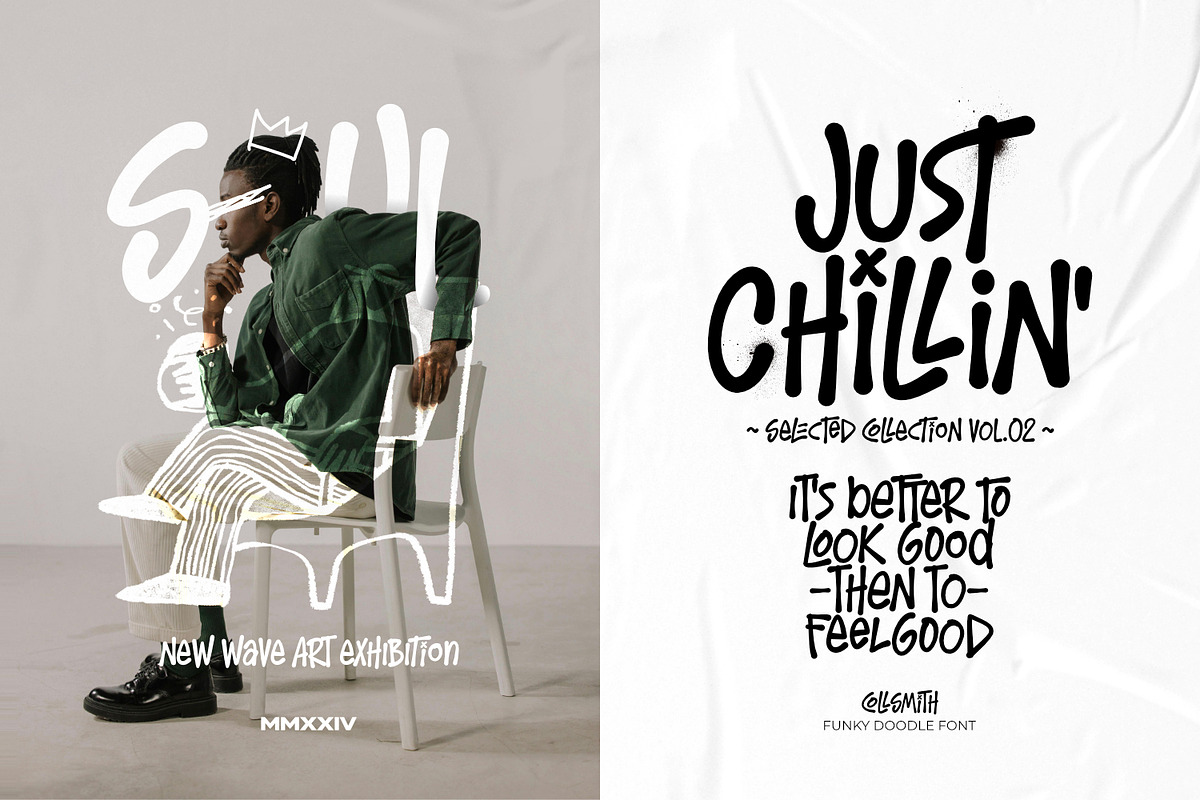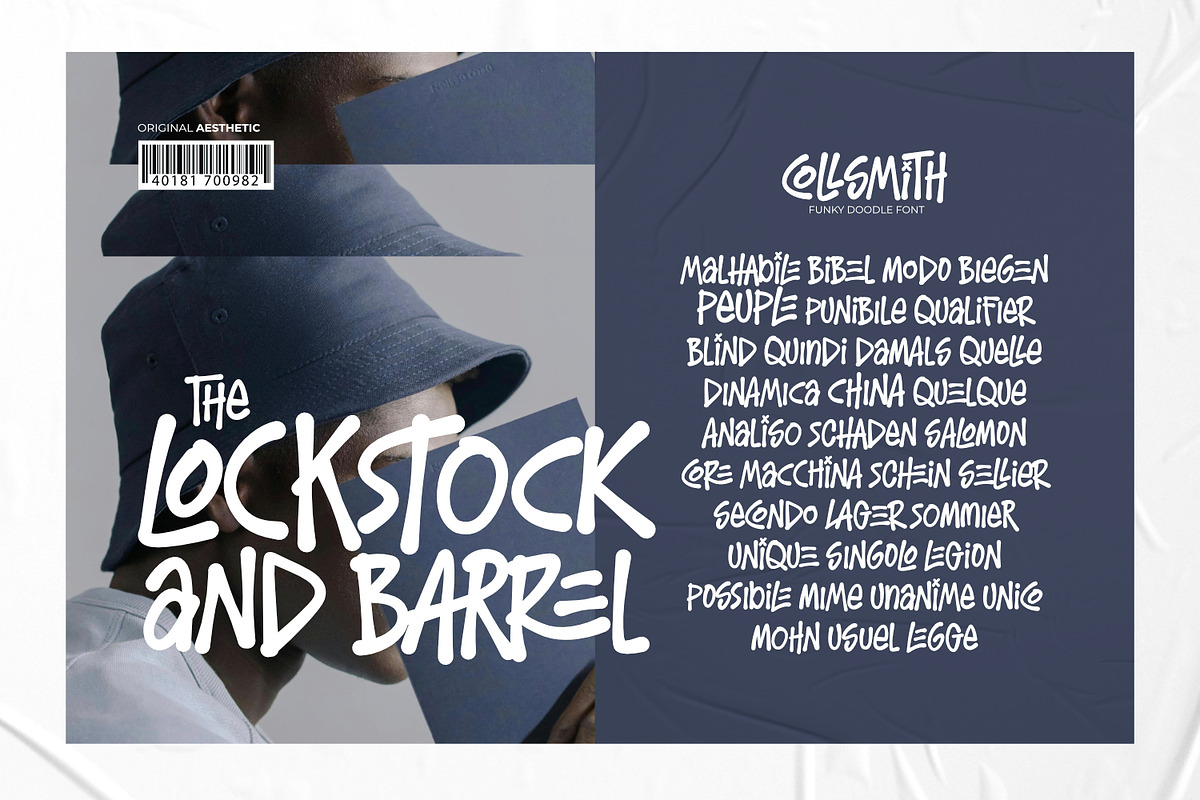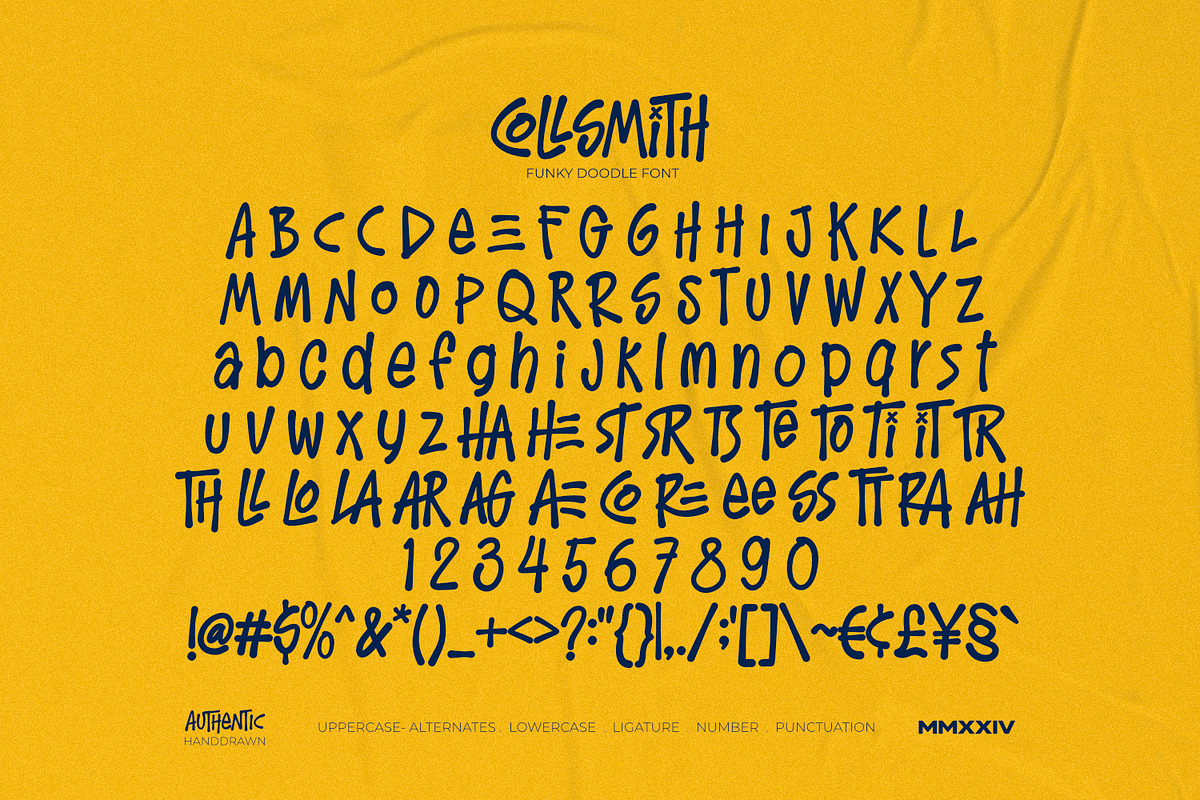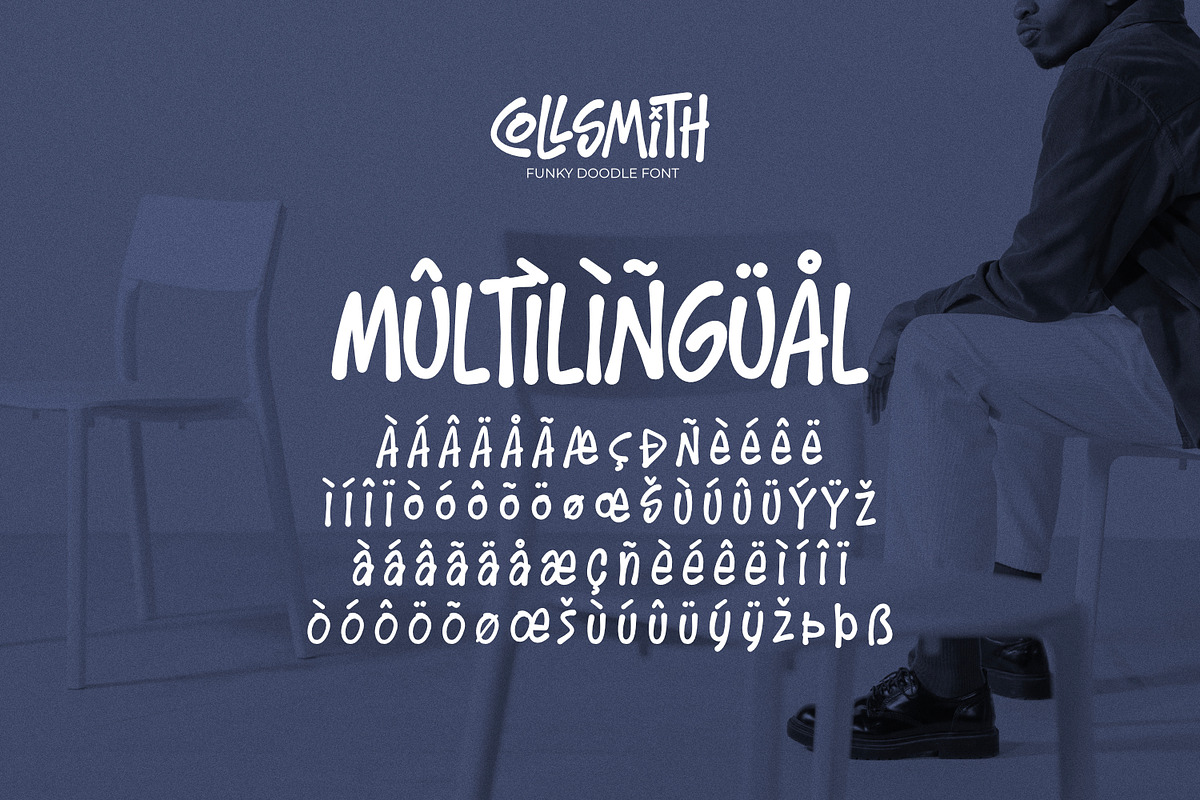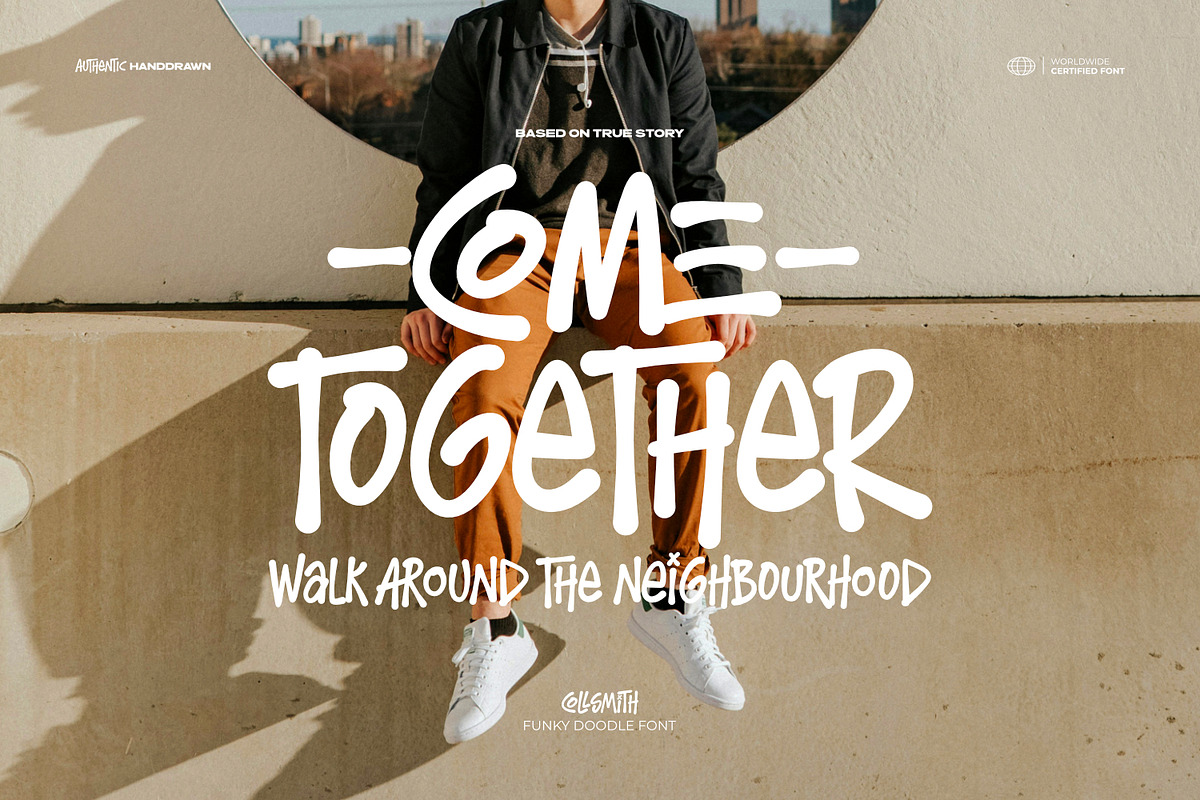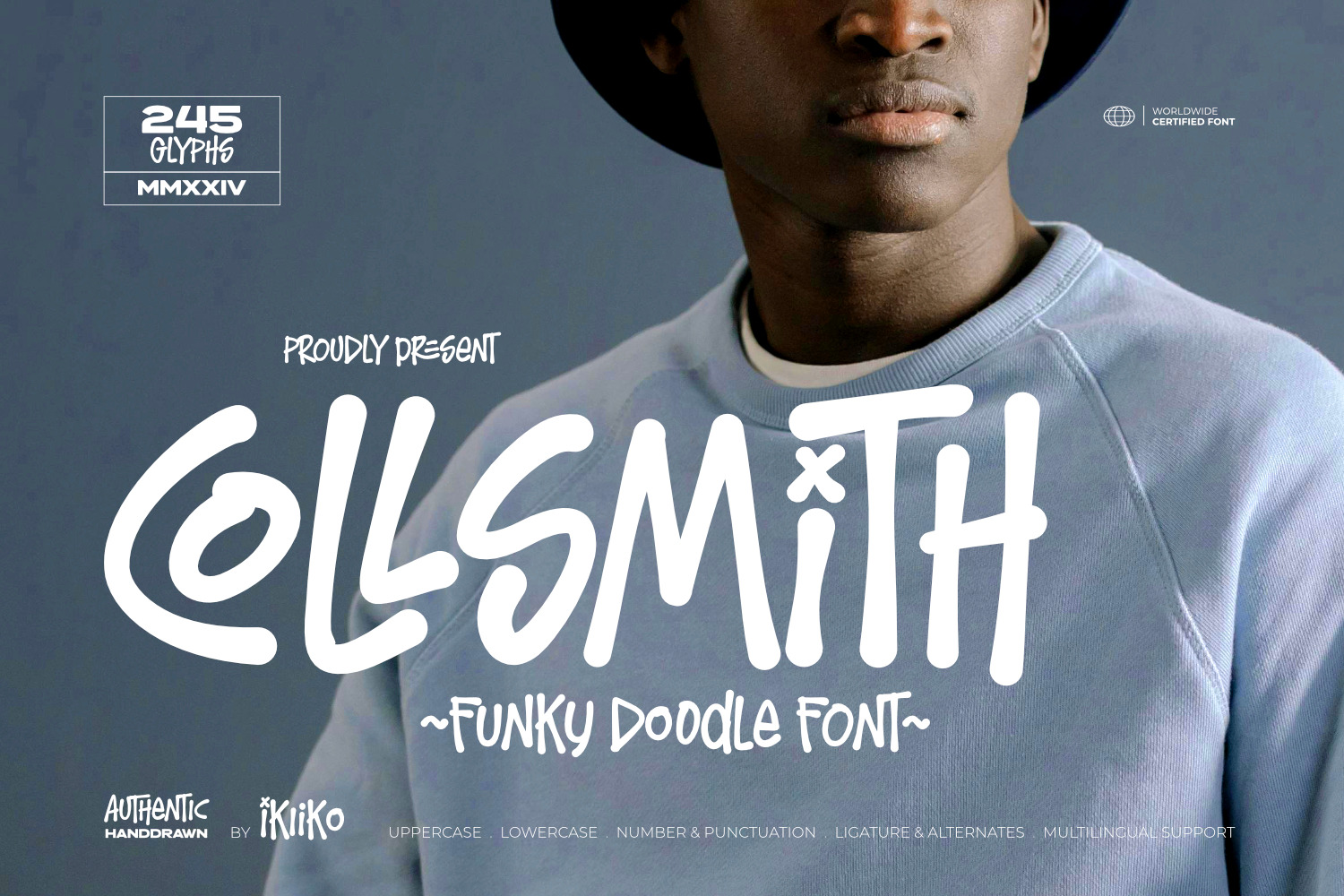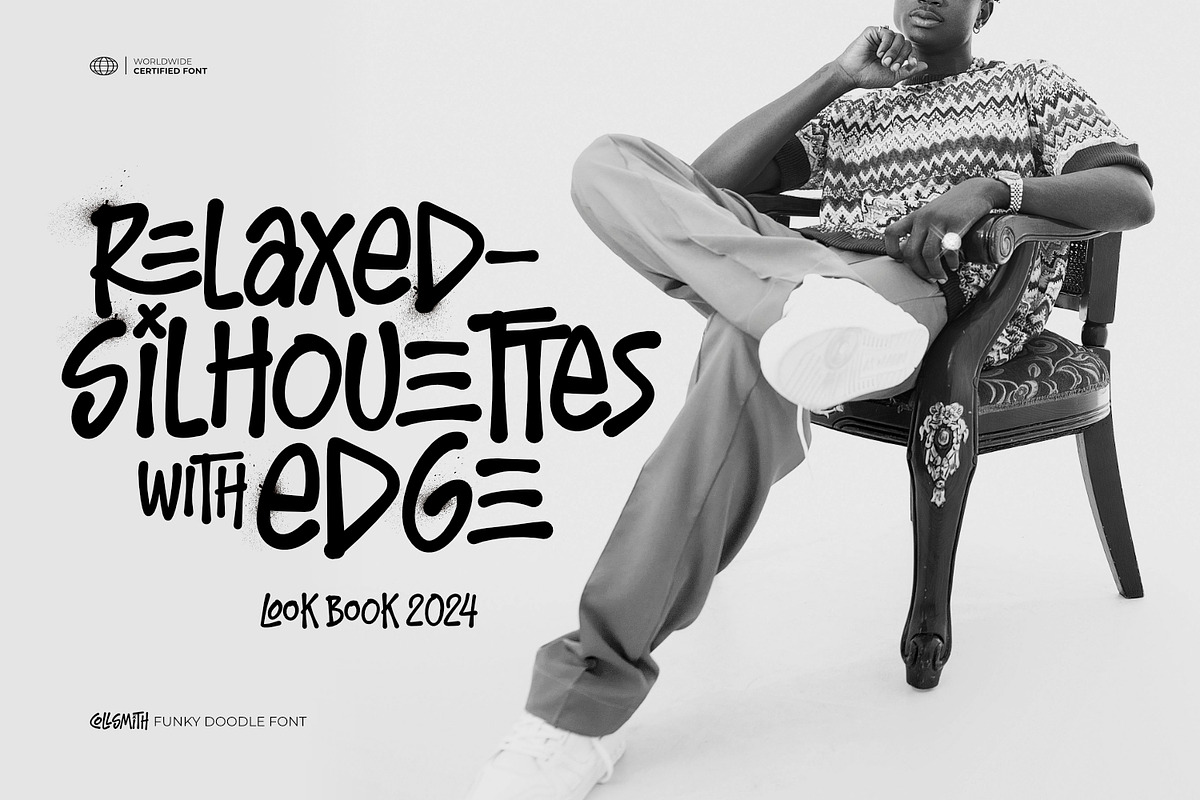
Collsmith - Funky Doodle Font
Proudly present Collsmith - Funky Doodle Font, created by ikiiko.
Collsmith, the height of style and quirkiness when it comes to fonts. Collsmith's seductive charm and creative doodle style instantly take any design to the next level of sophisticated elegance. For projects that are on trend, each letter moves with a whimsical flair that embodies an artistic freedom and originality.
Collsmith brings a bit more flair and individuality to any project, whether it's creating fashionable clothing designs, engrossing magazine layouts, or striking branding materials. Accept the whimsy of Collsmith and allow your imagination to go wild as you incorporate its stylish edge into your designs.
This font is very suitable for making a fashion brand, street wear, poster, logo event, magazine layout, quotes, or simply as a stylish text overlay to any background image.
- Alternates & Ligature